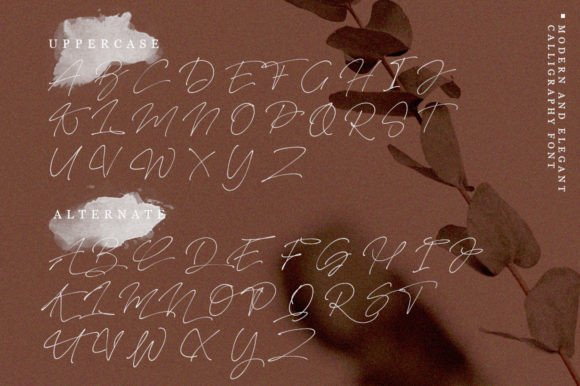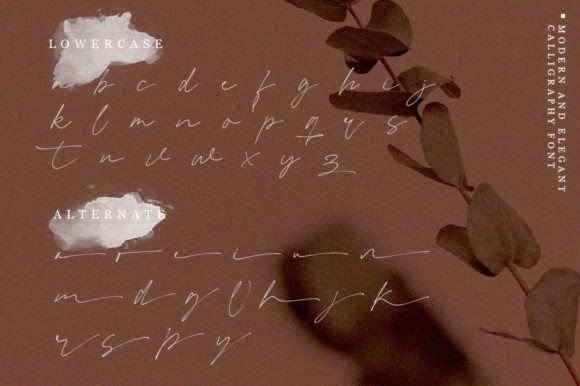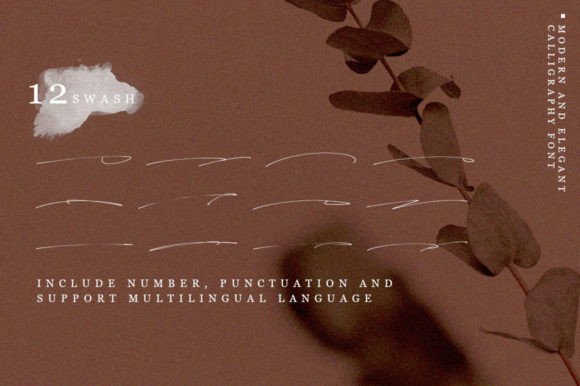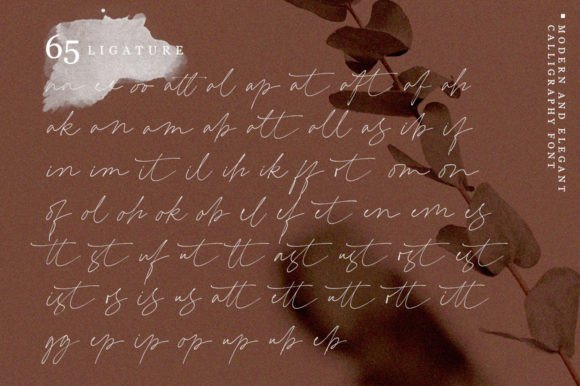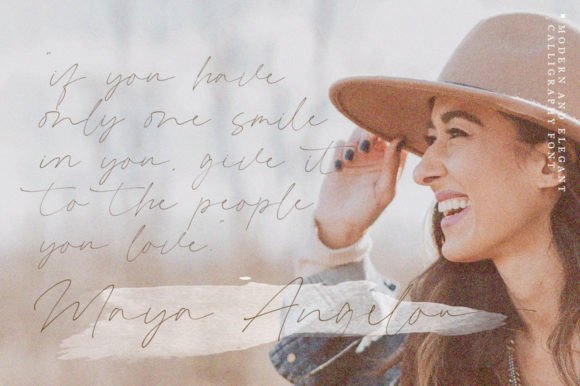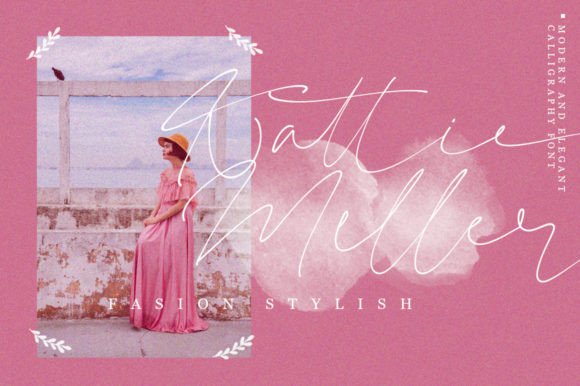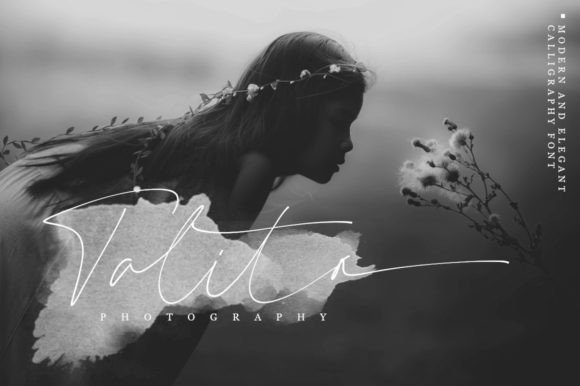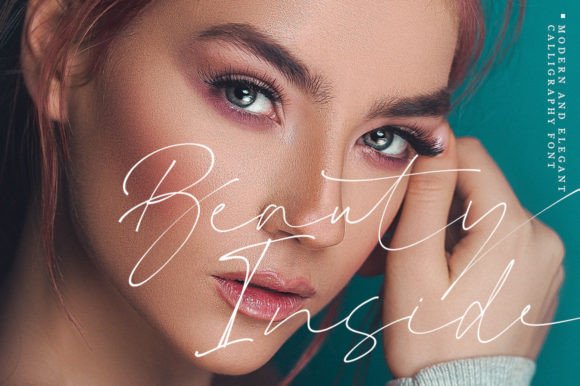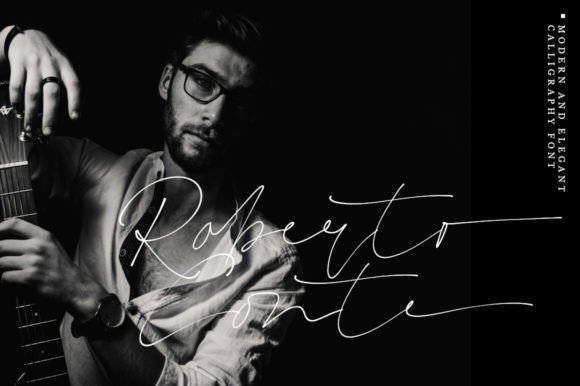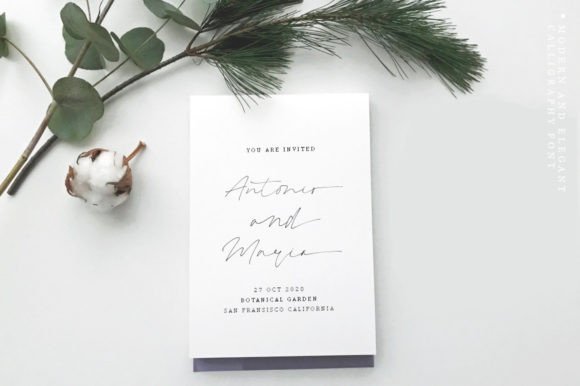
Selomita Font
Selomita Font: Magical Calligraphy for Elegant Designs
“Selomita” is a captivating handwritten font that blends timeless elegance with authentic calligraphy. It’s perfect for various design projects, offering a beautiful combination of sophistication and approachability.
Key Features of Selomita Font
• Magical Style: Selomita brings a sense of enchantment and grace to designs.
• Classic Elegance: Combines timeless beauty with a friendly touch.
• Versatile Use: Suitable for many projects, from branding to invitations.
Elegant Stationery
Selomita’s magical style is ideal for creating beautiful wedding invitations and special event materials.
Use Selomita to design sophisticated logo designs and branding materials that convey timeless elegance.
Editorial and Digital Design
The font’s classic look makes it perfect for creating eye-catching magazine layouts and website headers.
Why Choose Selomita Font?
Selomita offers more than just beautiful letters. Here’s why it stands out:
• Enhances overall aesthetics with its classic yet friendly style
• Conveys a sense of elegance and authenticity effectively
• Adds a touch of timeless beauty and charm to designs
By using Selomita, you open up new design possibilities. Its elegant style works well in many contexts, from greeting cards to poster designs. The font’s ability to convey sophistication can inspire creative ideas and help you approach projects from a fresh, enchanting perspective.
If you’re looking for a font that combines magical elegance with versatility, Selomita is an excellent choice. It’s perfect for adding a touch of timeless beauty to your work, especially for projects that need a sophisticated, captivating feel.
Explore how Selomita can transform your designs. From branding materials to personal creations, this font brings a classic and enchanting quality to your work.